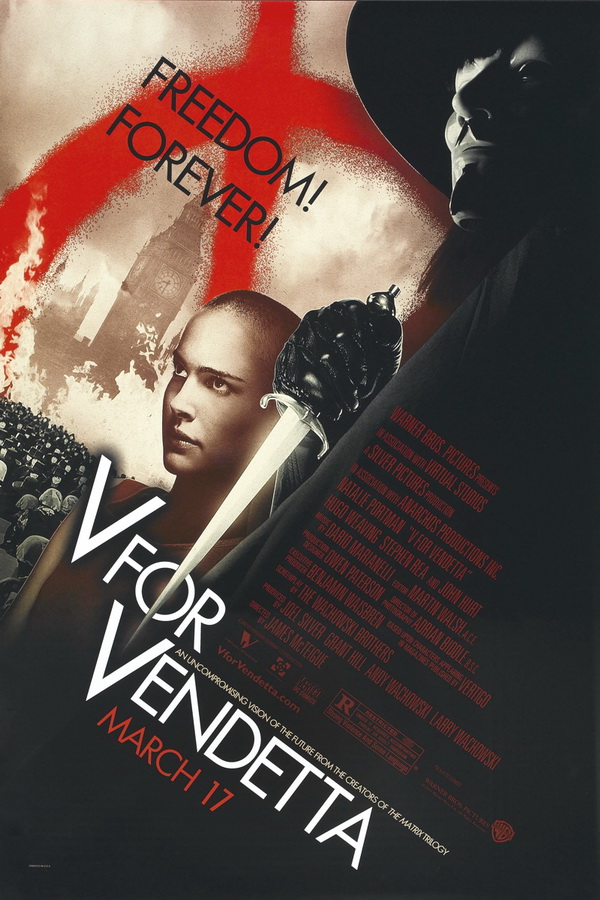
V for Vendetta Font
FantasyV for Vendetta is a 2006 political thriller movie that follows a masked anarchist who fights against a fascist government in a dystopian future Britain. It is based on the 1988 DC Comics limited series of the same name by Alan Moore and David Lloyd.
The font used for the "V for Vendetta" movie title has a striking resemblance to Futura Book, a commercial typeface created by Paul Renner back in 1932. You can view and buy the font here.